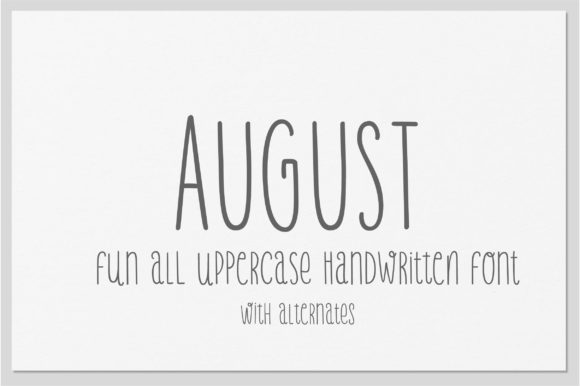
The Charming August Font: A Designer’s New Best Friend
I’ll never forget the time I was working on a project for a client’s wedding, and I just couldn’t find the perfect font to capture the whimsical, hand-written feel she was looking for. I scoured the internet, tried out dozens of fonts, but nothing seemed quite right. That was until I stumbled upon the August font. ✨
It was love at first sight! The authentic, chalkboard-like quality of August instantly transported me to a world of creativity and possibility. I knew right then and there that I had found the perfect font for my client’s special day. And, as I soon discovered, it’s not just limited to wedding projects – August is a versatile font that can be used for a wide range of designs, from chalkboard quotes to teaching materials.
An Honest Review of August Font
What I Love About August Font
• ✨ Cute and Whimsical: August font has a playful, hand-written feel that’s perfect for designs that need a personal touch.
• ✅ Authentic Look: The font’s chalkboard-like quality gives it a realistic, authentic feel that’s hard to find in digital fonts.
• 💡 Versatile: August font can be used for a wide range of projects, from wedding designs to teaching materials and more.
While August font is a beautiful and versatile font, there are a few things to keep in mind when using it. ⚠️
• 🤔 Limited Use in Small Sizes: August font can be a bit tricky to read in small sizes, so it’s best to use it in larger sizes where its charm can shine.
• ⚠️ Occasional Kerning Issues: Like any font, August may require some manual kerning to get the spacing just right.
The Story Behind August Font
August font was designed with the intention of creating a font that would capture the charm and whimsy of hand-written chalkboard quotes. The designer, inspired by the classic chalkboard look, aimed to create a font that would be both authentic and versatile. And, with August font, they certainly succeeded! 🎉
Q: What is the August font best used for?
A: August font is best used for designs that require a personal, hand-written touch, such as chalkboard quotes, teaching materials, and wedding designs.